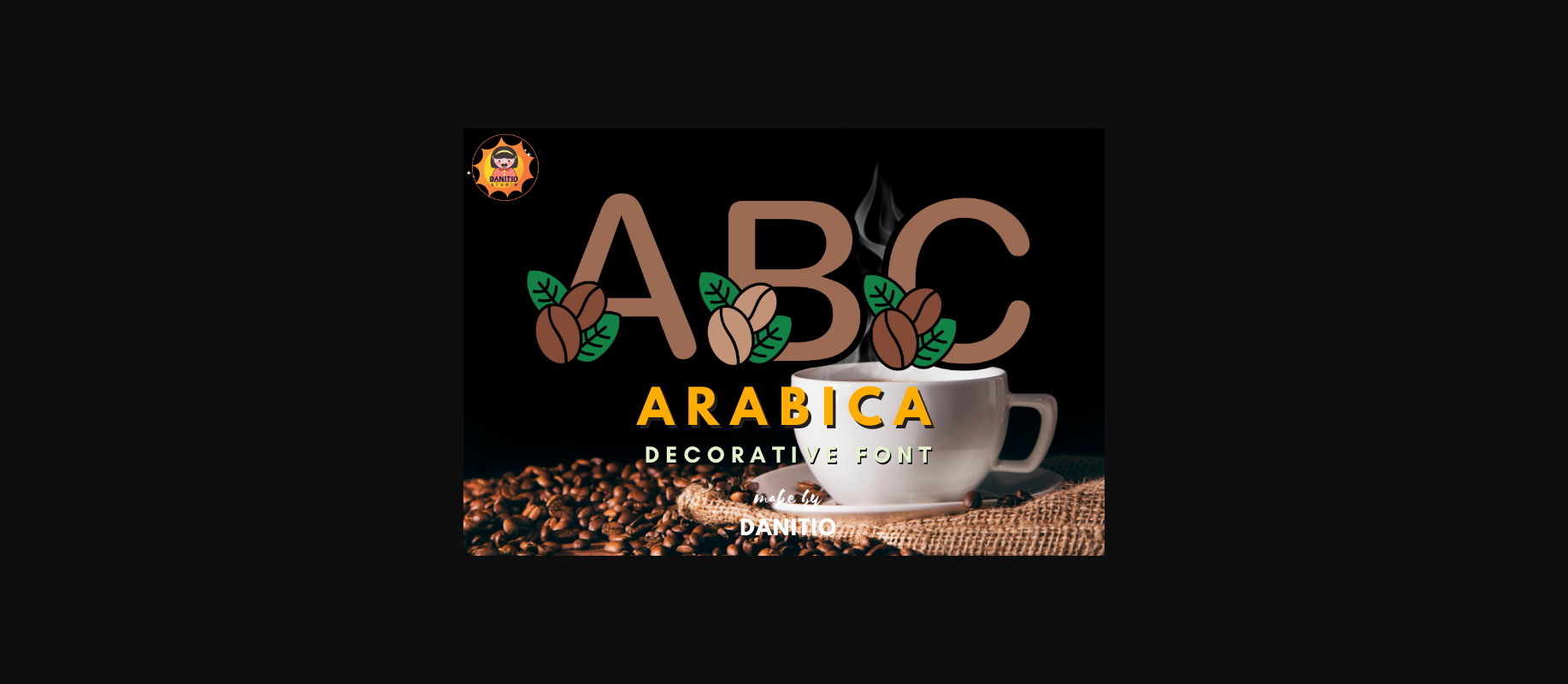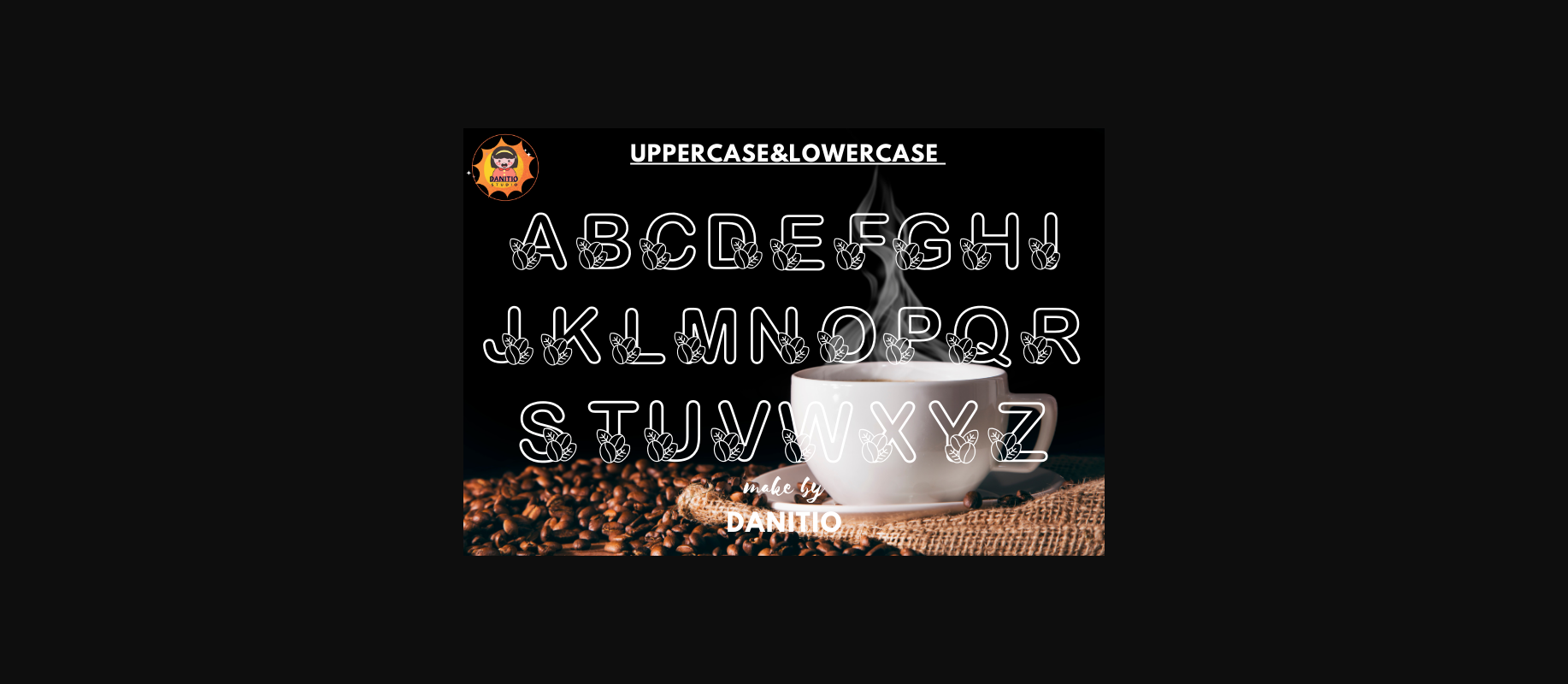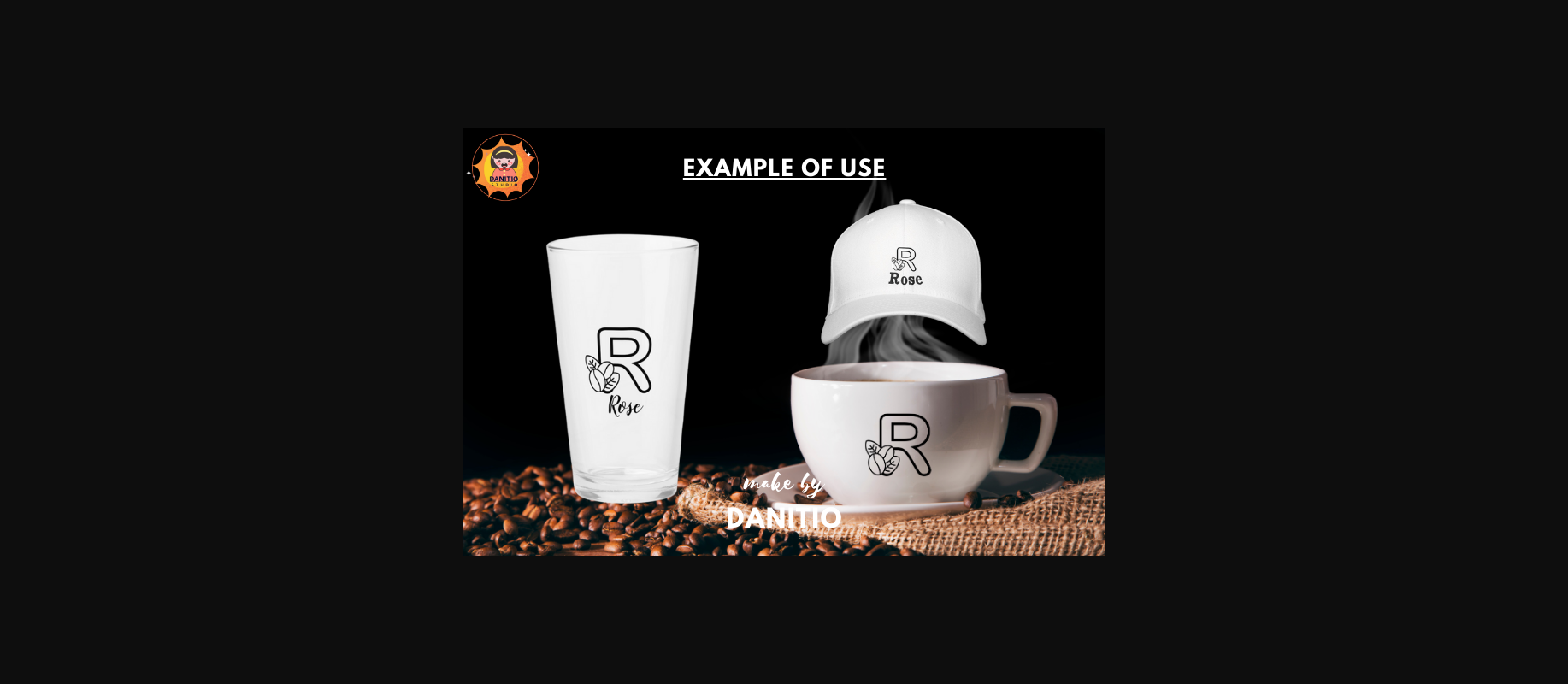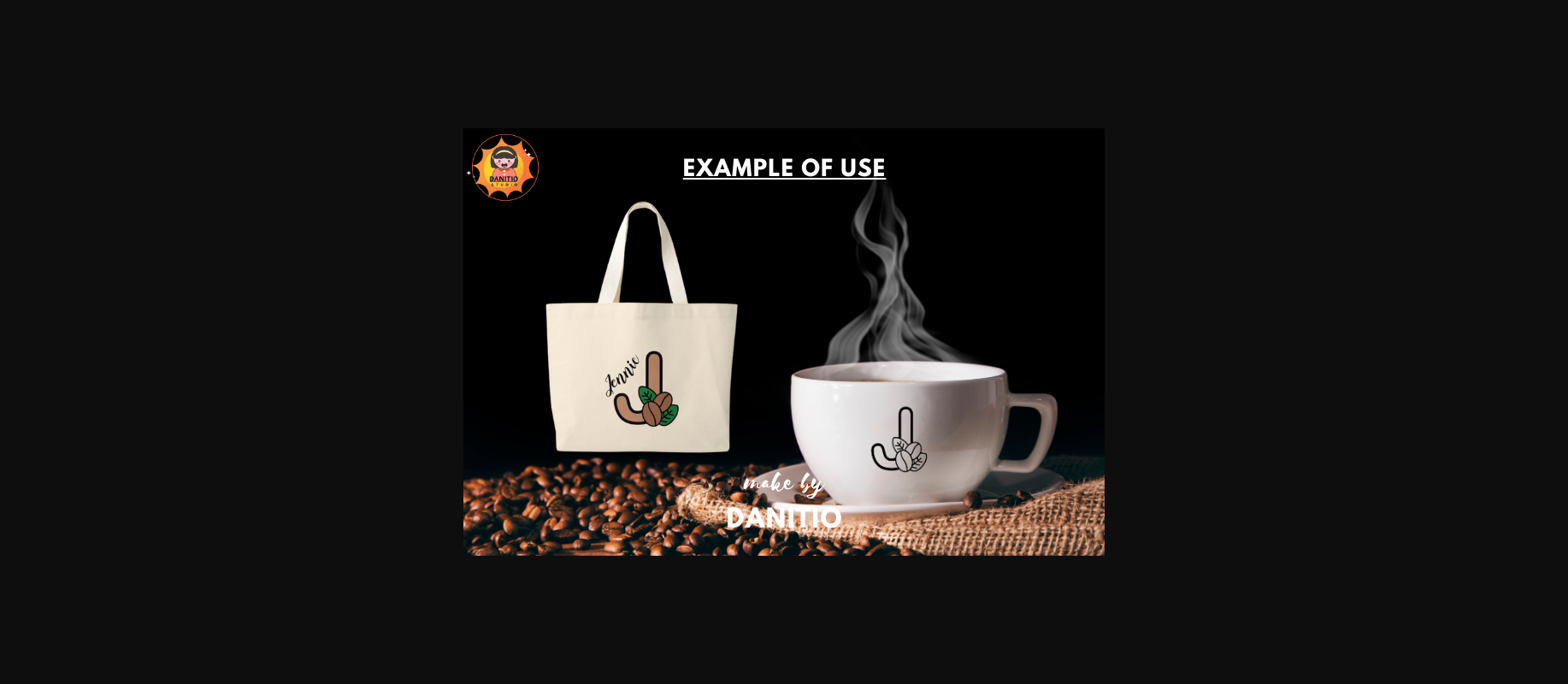
About Arabica Font
Arabica Coffee is a cool decorative font with fun coffee elements. It embodies fun and authenticity and it’s the perfect choice for projects that need a fun, caffeinated touch.